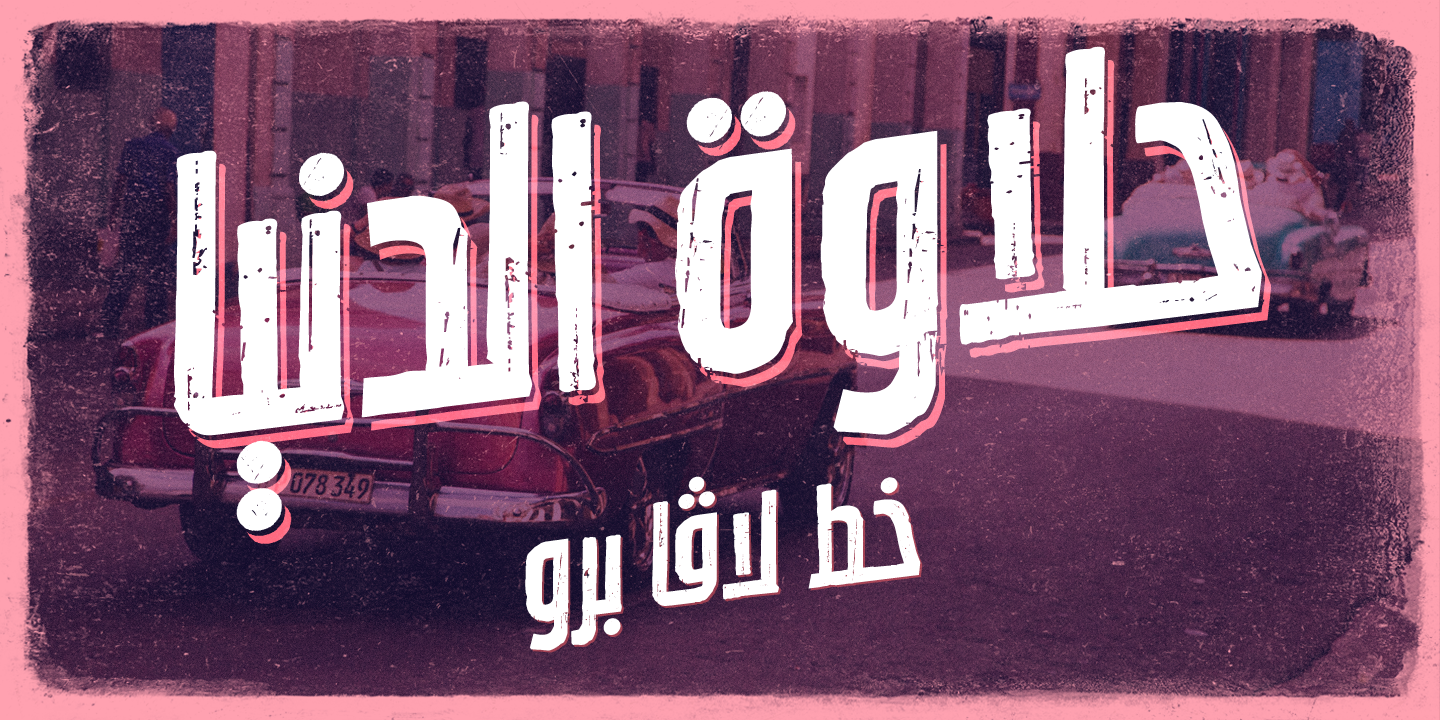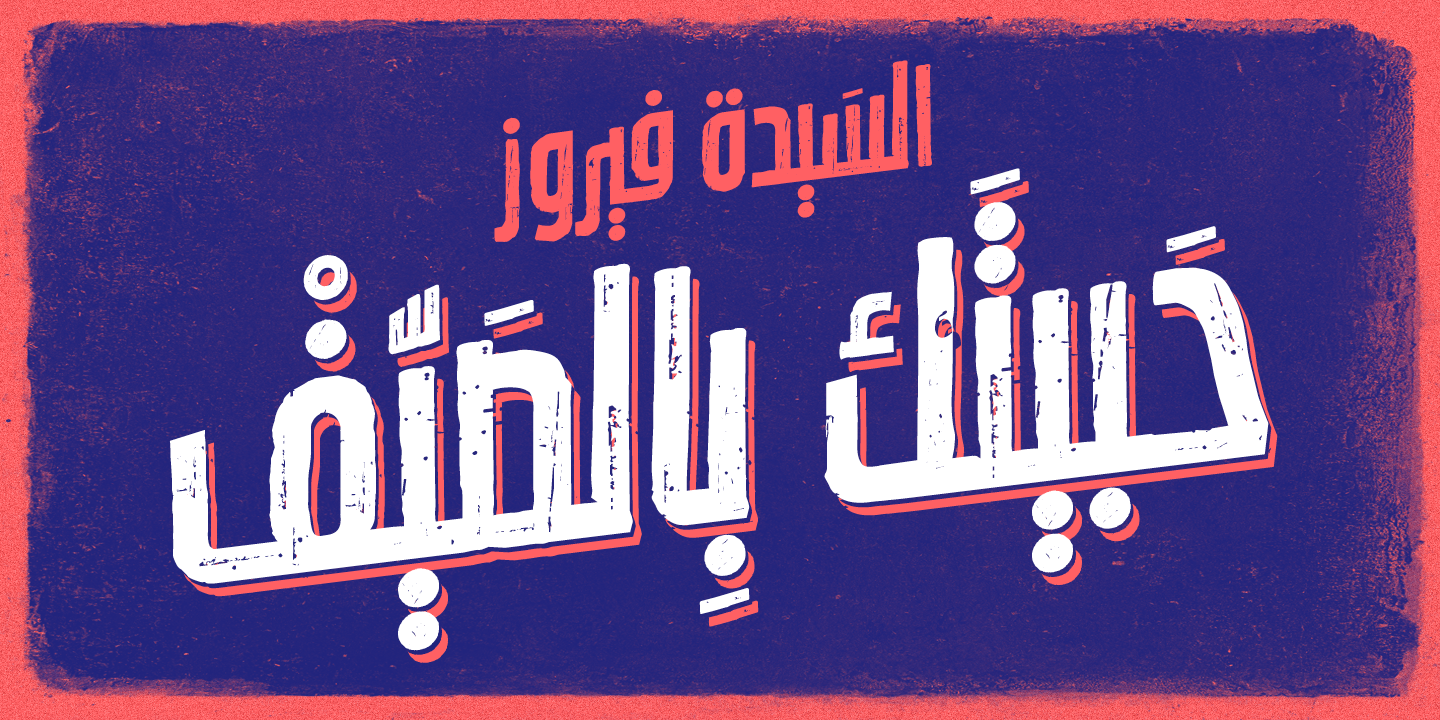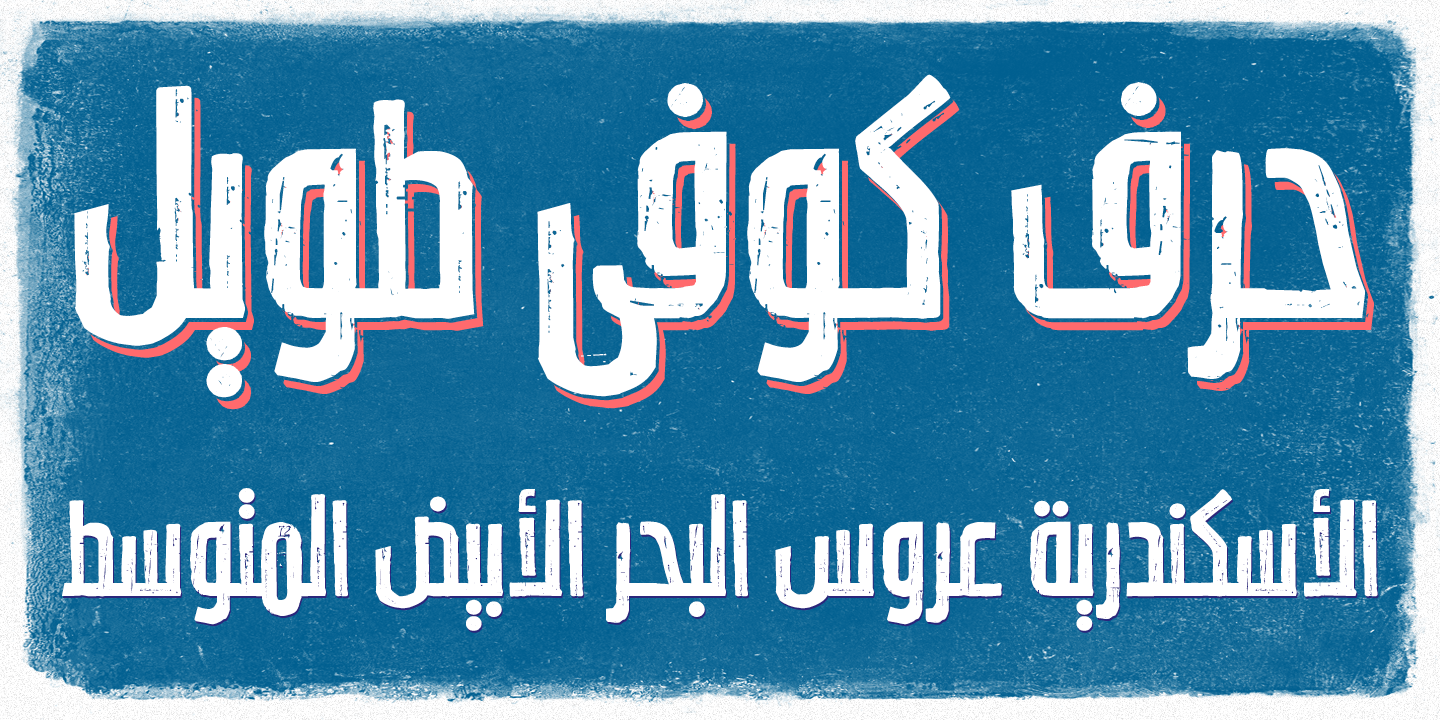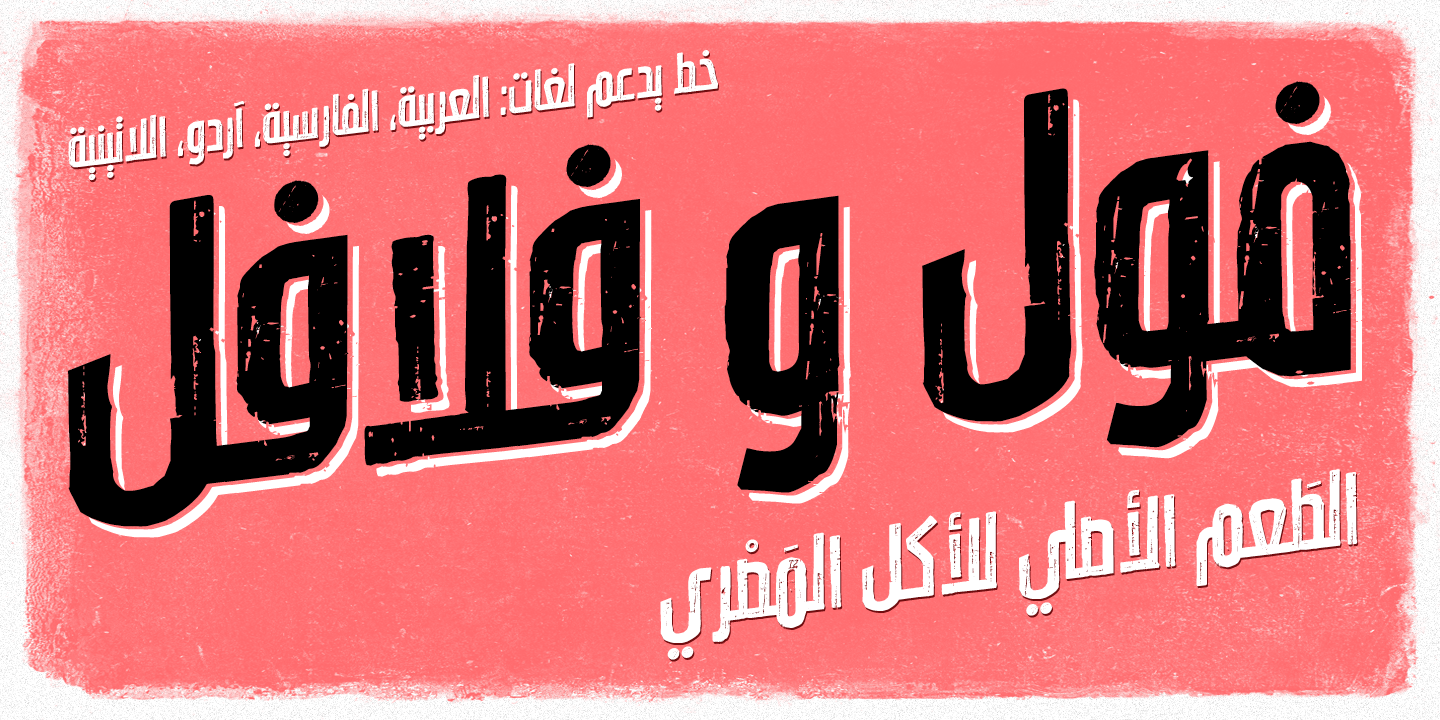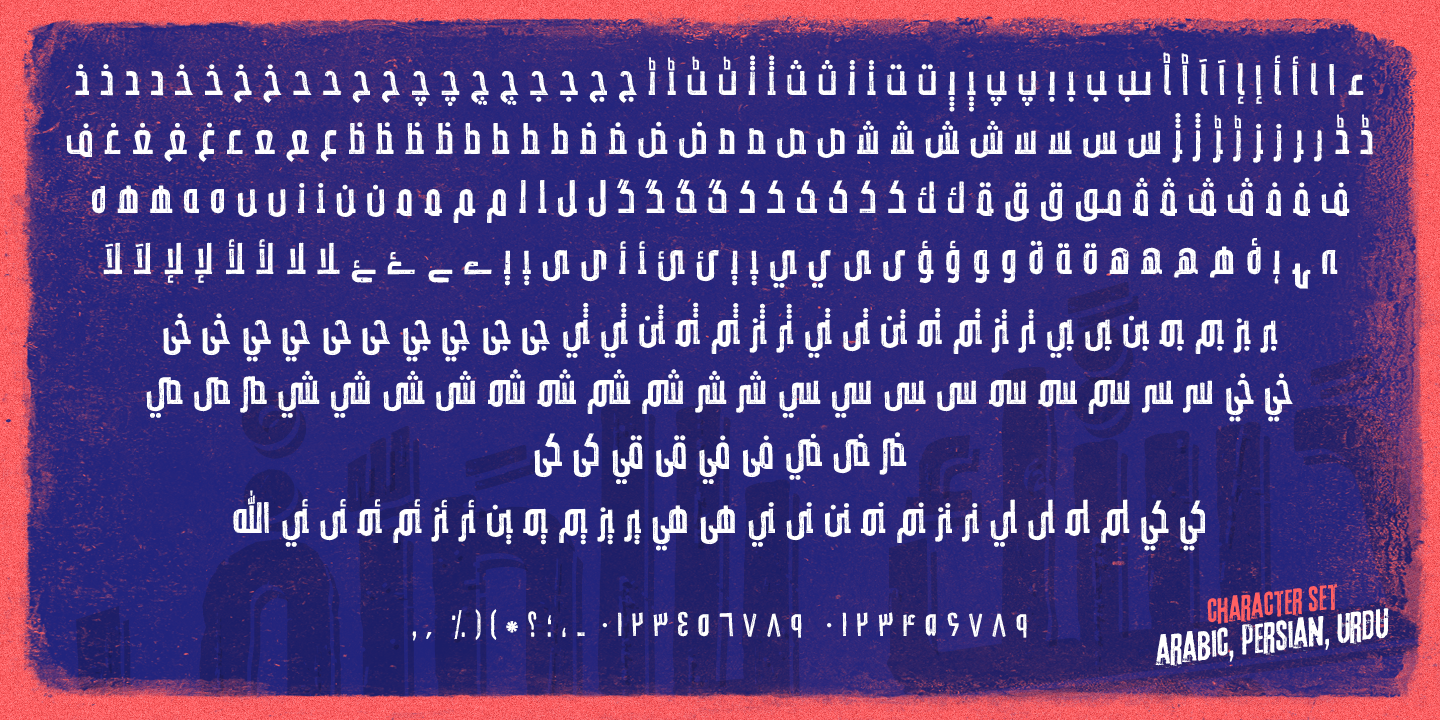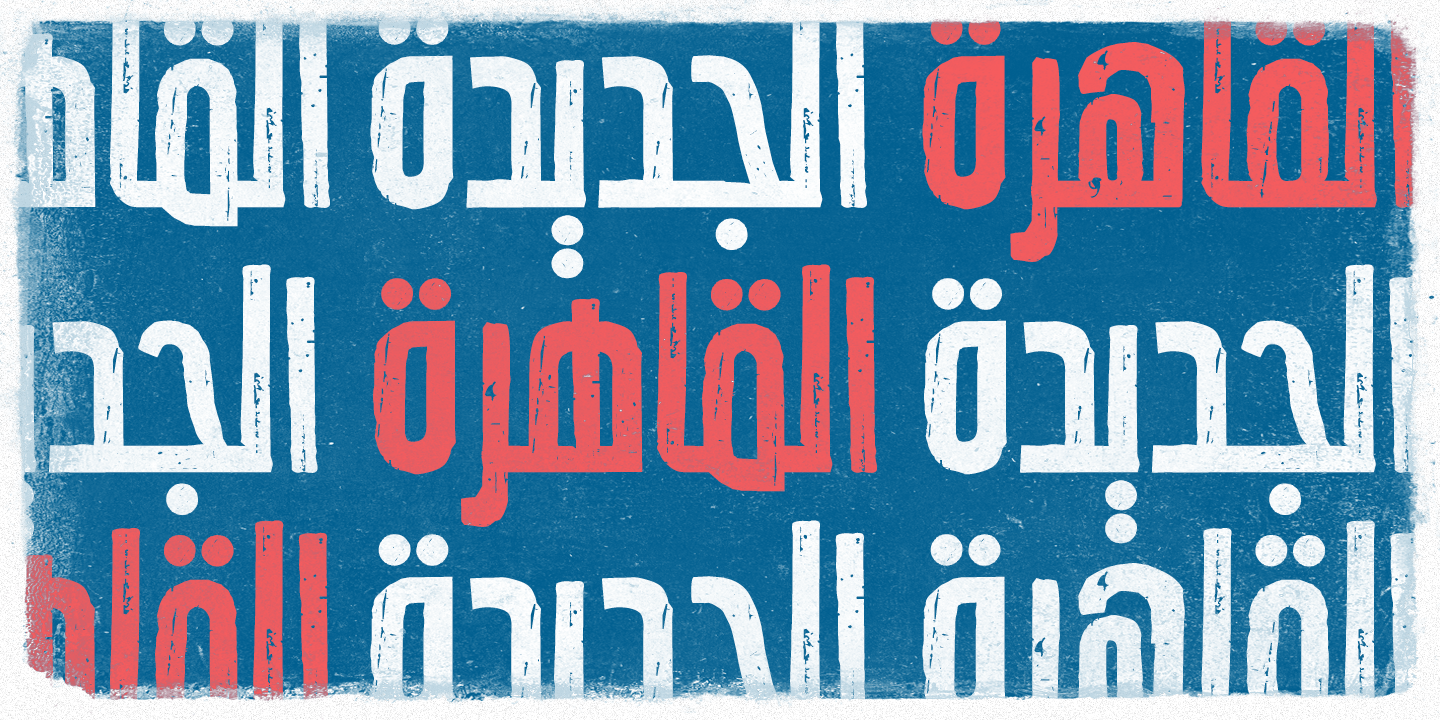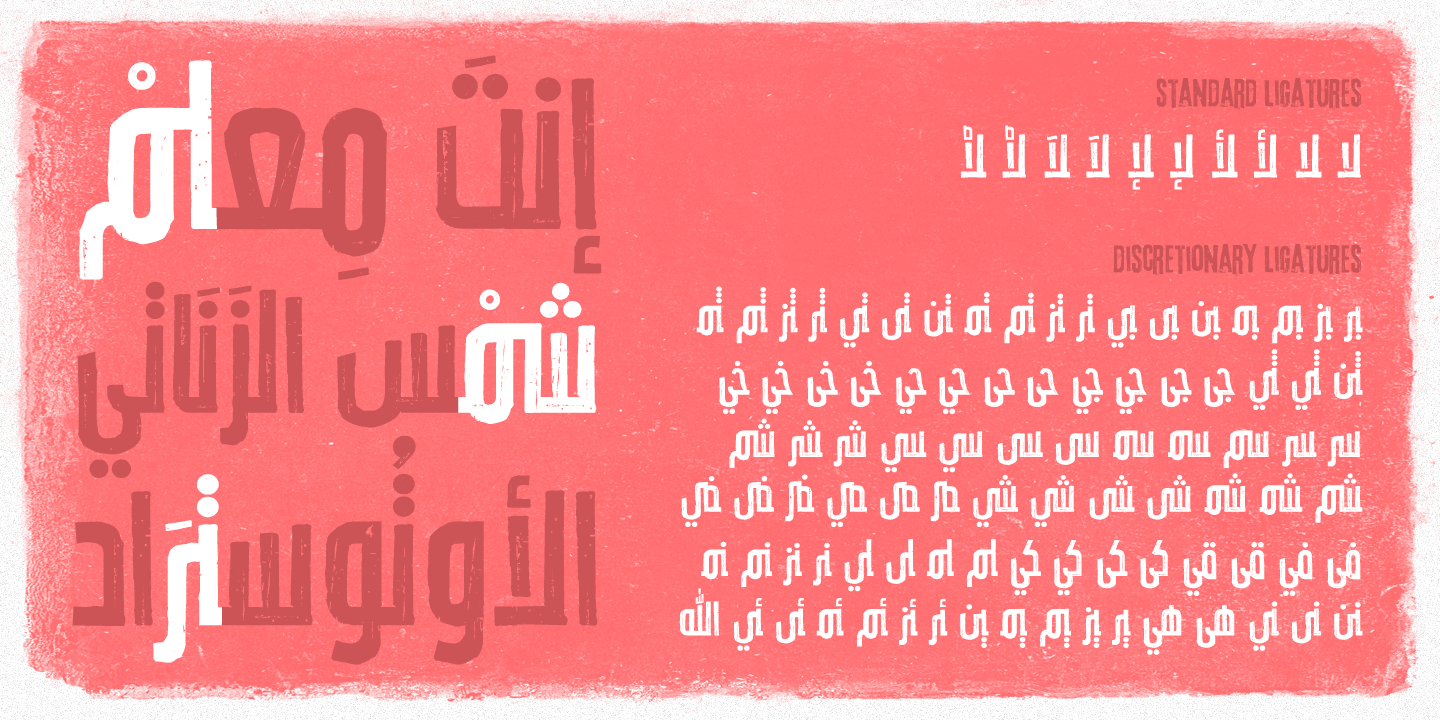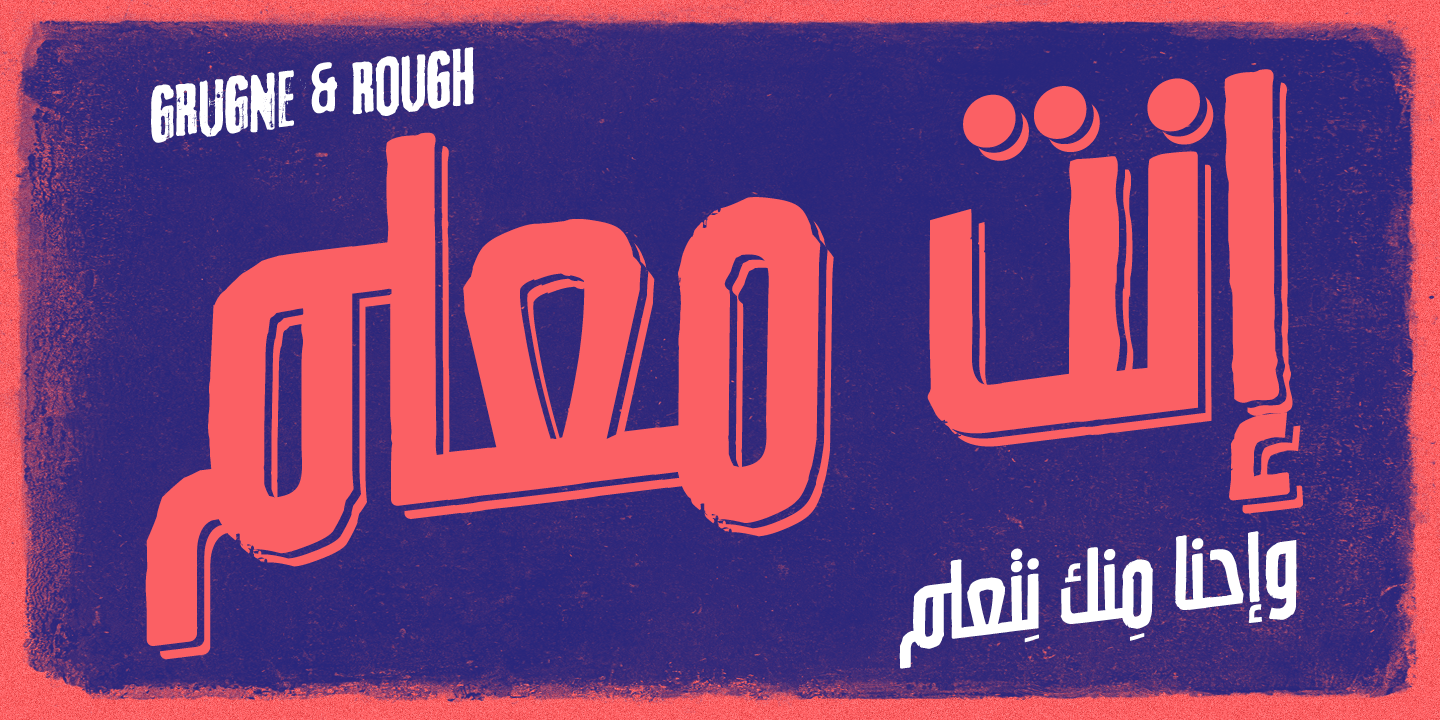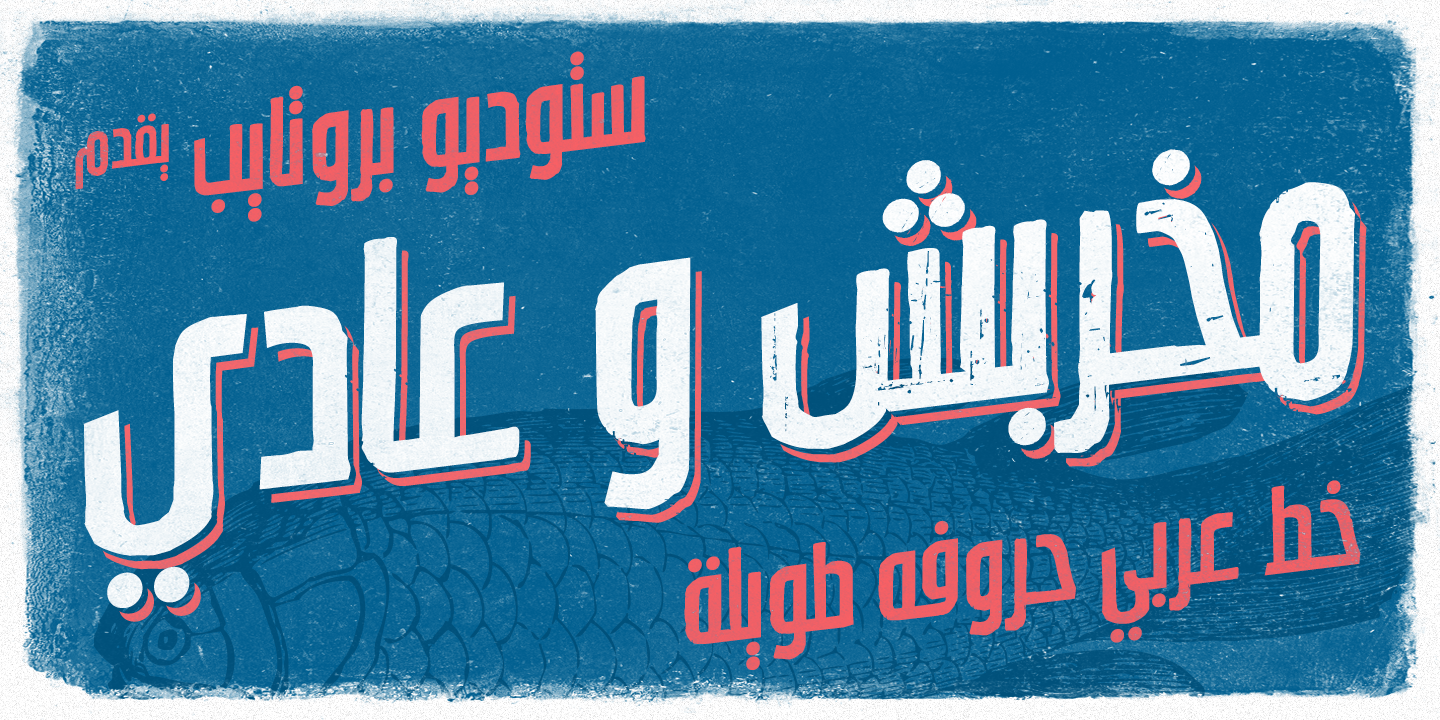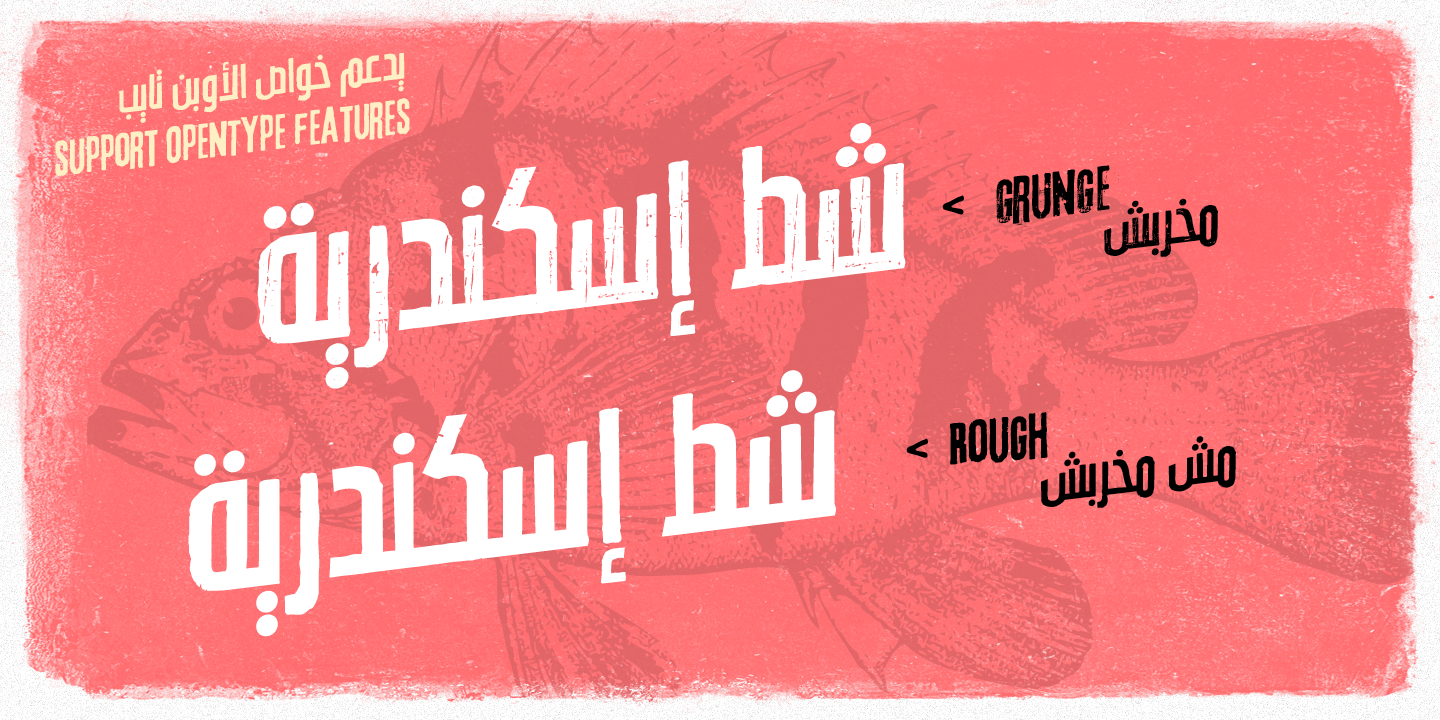
Lavah Pro is the enhanced and updated version of the leaked version (Lava Arabic). Lavah Pro is Arabic condensed/narrow with grunge and rough style for vintage style posters, brands or ads maybe for food ads or movie poster. Lavah Pro is supported by OpenType Features with many Stylistic Alternates and Discretionary Ligatures and It's support Arabic, Persian, Urdu and Latin. Designed and Created by Ibrahim Hamdi Copyright © 2019 by Protype Foundry. All rights reserved.
● Lavah Pro
Release
2019
Styles
2 Styles (Rough and Grunge)
Supported Languages
Arabic, Persian, Urdu and Latin
Opentype Features
Contextual Alternates, Stylistic Alternates, Standard Ligatures, Dictionary Ligatures